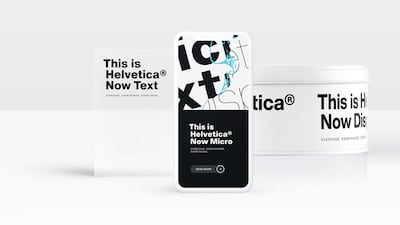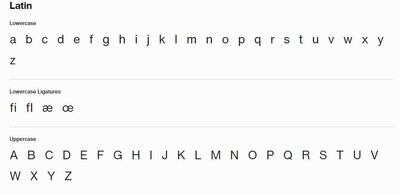
Maybe only some of you will know about Helvetica, but you will all use it in some way or another: the font is the gold standard for designers.
The globe's most popular font has now been updated, the 'R' has a straight leg, the 'G' is rounded and the capital 'I' and lowercase 'l' have been differentiated better: Helvetica's new iteration is called Helvetica Now.
The Helvetica font family is 62 years old (and was the typeface representation of the mid-century modern era), and the last update was 35 years ago. The mantra of the typeface has always been to display "clarity, simplicity and neutrality", but it was designed in the pre-digital era by people who weren't thinking about tablets or laptops or wearable devices, and who didn't know about high-res printers and ultra HD yet tiny screens.
The licensing rights to the Helvetica typeface are owned by the world's largest font company Monotype, who have made bold statements about the redesign: "This is not a revival. This is not a restoration. This is a statement," says the group of the new look. "It's more than a refresh or an update."
The earlier iteration of Helvetica (Neue) was designed with only standard text type in mind, whereas Helvetica Now has been designed also with consideration of micro and display sizes (the latter means headlines etc). This means the font is now more legible when both small and big (so will be as easy to read on a smartwatch or billboard, as in a book).
Helvetica Now wasn't a quick update, either, the planning for the new font update began in December 2014 and was a collaboration between dozens of designers and engineers.
"Helvetica Now is the tummy-tuck, facelift and lip filler we’ve been wanting, but were too afraid to ask for. It offers beautifully drawn alternates to some of Helvetica’s most awkward moments, giving it a surprisingly, thrillingly contemporary character,” said Abbott Miller, partner at design consultancy Pentagram of the update.